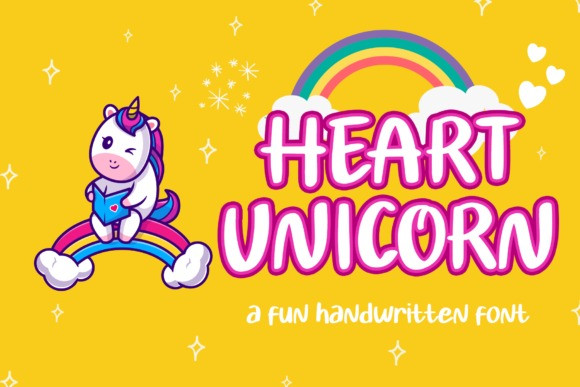
Heart Unicorn Font
Heart Unicorn Display Font is a playful and quirky display font. Whether you are using it for cartoon-related designs, children’s games, quotes, titles, brand names, book covers, posters, or just any creation that requires a touch of beauty, this font is a great choice.